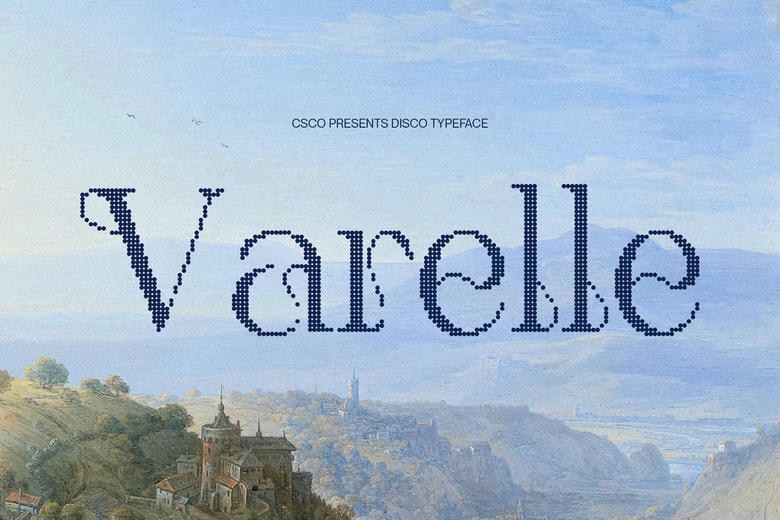
Varelle Disco Font
Varelle Disco Font- Art Nouveau Curves with Clean Simplicity It is an exclusive display font that combines the natural beauty of Art Nouveau curves with the simplicity of a modern design. Its curvy lines also add sophistication and grace and the streaminess of its forms makes it versatile and modern. This proportion produces a timeless and new typeface.
Disco Effect of Sparkle and Power The disco effect is the characteristic of this font. All characters are radiant with visual energy giving a glamourous and dynamic impression. This glittering touch adds movement and life to the font, which is why it is the ideal option among the designs, which strive to create a sense of excitement and innovation.
Sophisticated and Classy Design This is flourishes on style and glamour mixing ornamental curves with contemporary simplicity. What is obtained is a font that expresses style, character as well as artistic beauty. It works especially well when you would like your designs to look sophisticated and playful to be used in the projects that would be noticed in the world of visually competitive projects.
Best with Bold Creative Projects Branding and editorial layouts, posters and artistic campaigns, the adapts to many applications. This font is very impactful, regardless of whether you are fashion designing, entertainment designing, or designing a contemporary brand. It is fashionable, full of personality and never boring to look at.
Varelle Disco Display Font